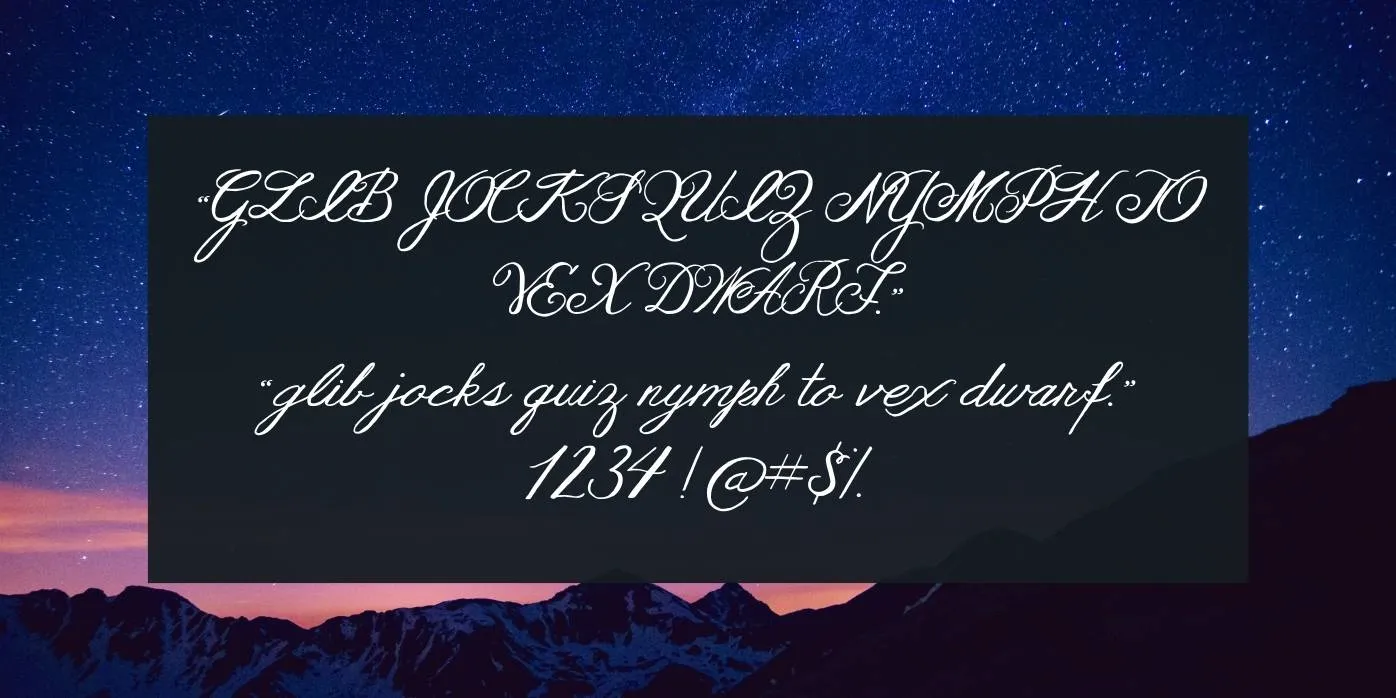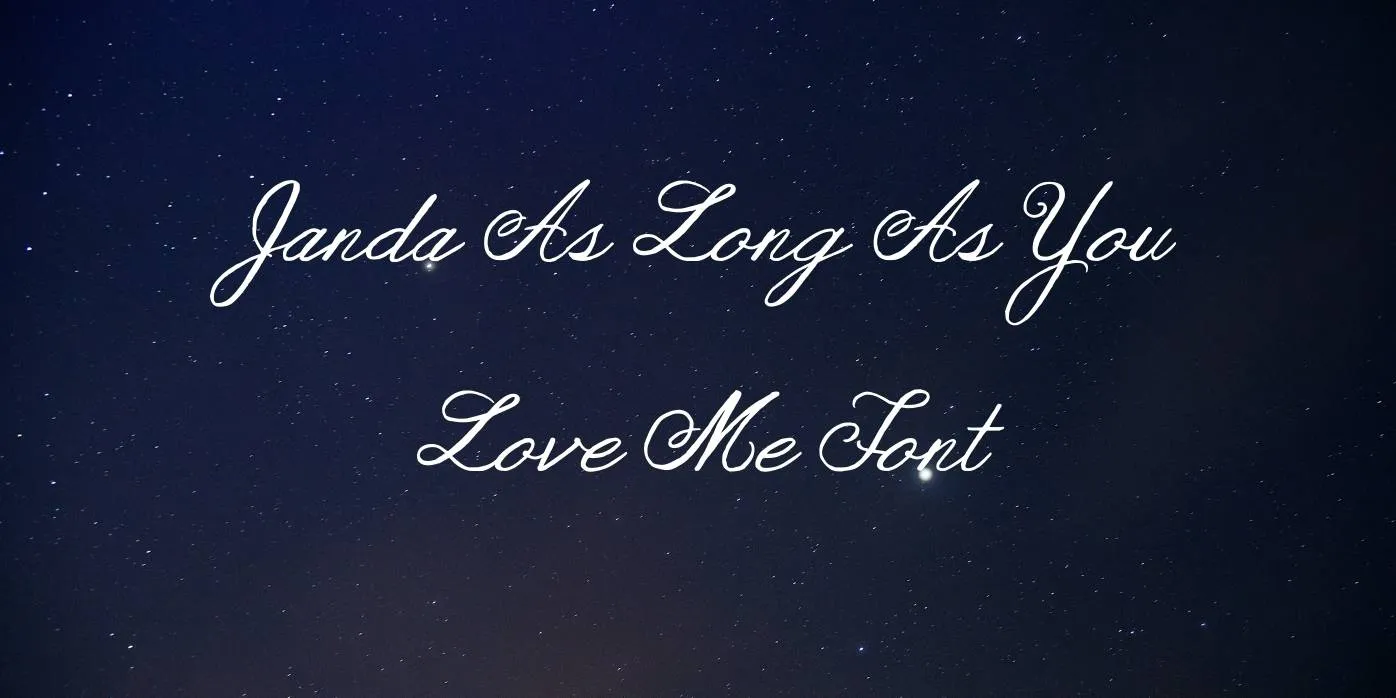
Janda As Long As You Love Me Font
The typeface that is best for working with this font is strange days font. On the basis of the unique texture this typeface is awesome for pairing. To see the stunning effects, use this pair in your project.